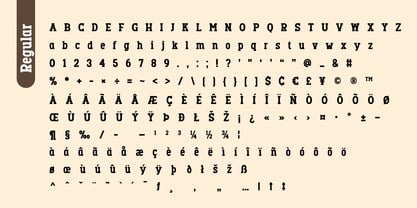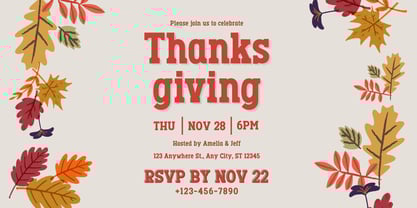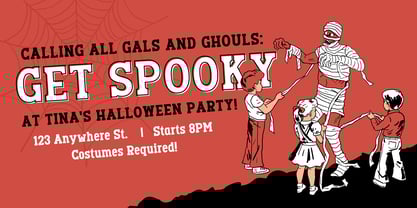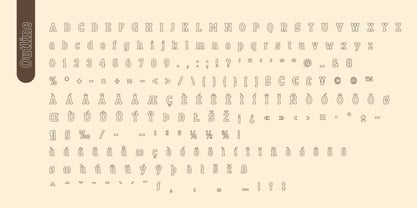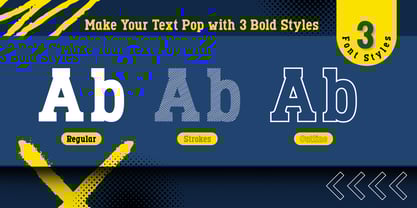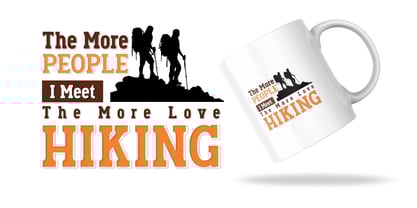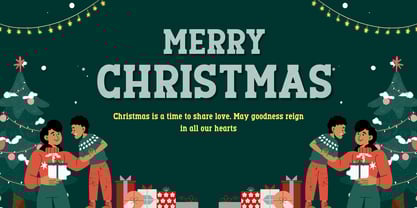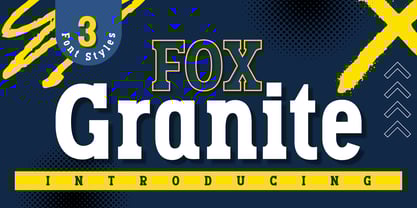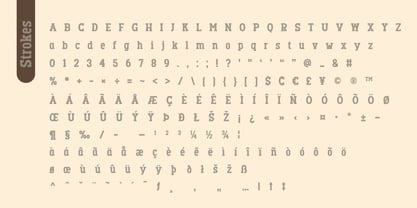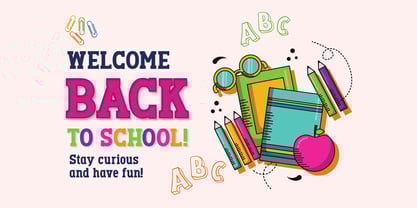
Fox Granite
by Fox7
The Fox Granite Font Family was designed by Rattana Rattanawan and published by Fox7. Fox Granite contains 3 styles and family package options. More about this family
Meet Fox Granite – a bold and versatile display font designed to make your text stand out with strength and style. Inspired by solid shapes and modern sports lettering, this font comes with 3 striking styles: Regular, Strokes, and Outline. Whether you want to create powerful headlines, sporty posters, or energetic branding, Fox Granite is here to give your project a confident impact. With its clean curves and dynamic personality, Fox Granite works perfectly for: ꕤ Sports and team logos ꕤ Posters and flyers ꕤ Bold product packaging ꕤ Urban and modern branding ꕤ Eye-catching social media graphics
Designers: Rattana Rattanawan
Foundry: Fox7